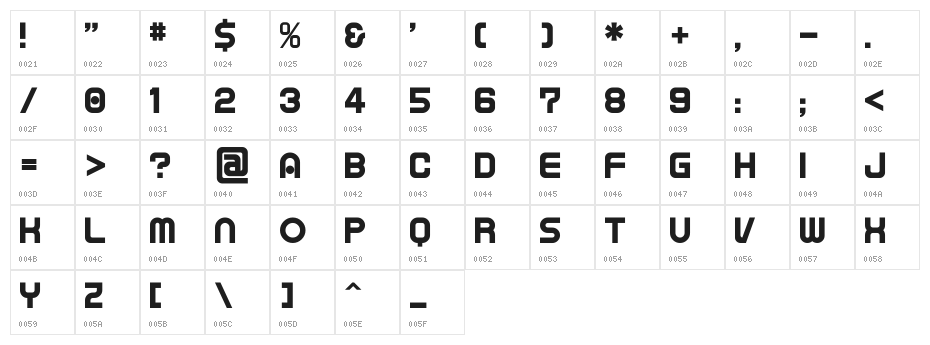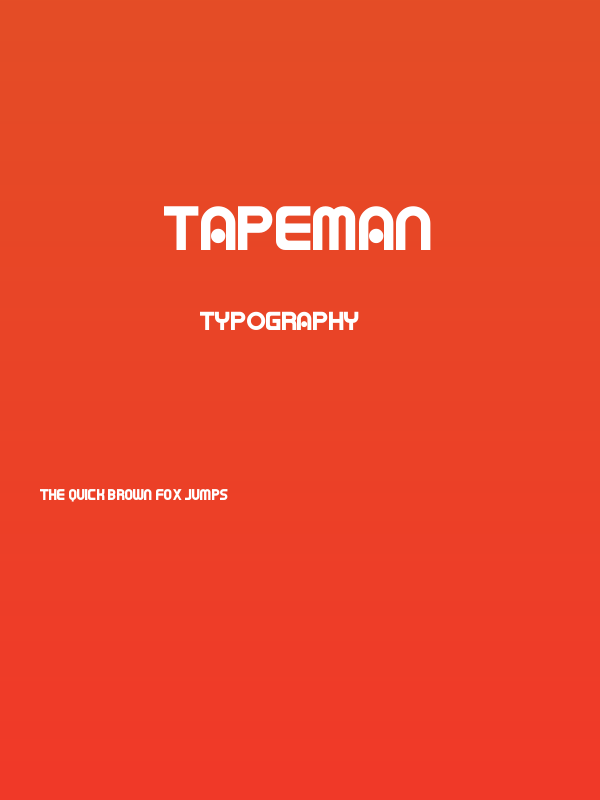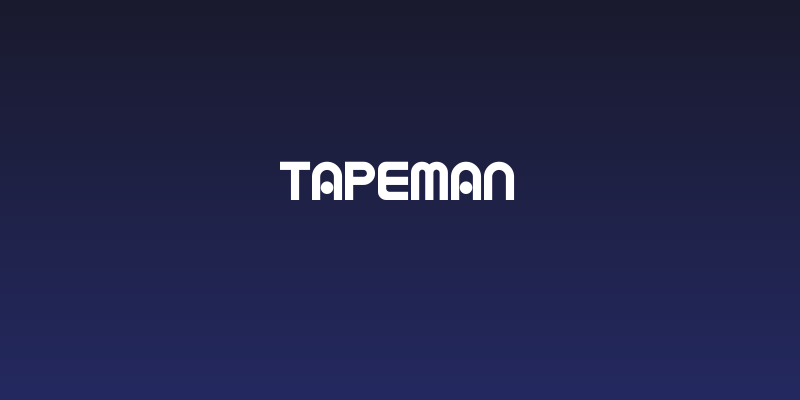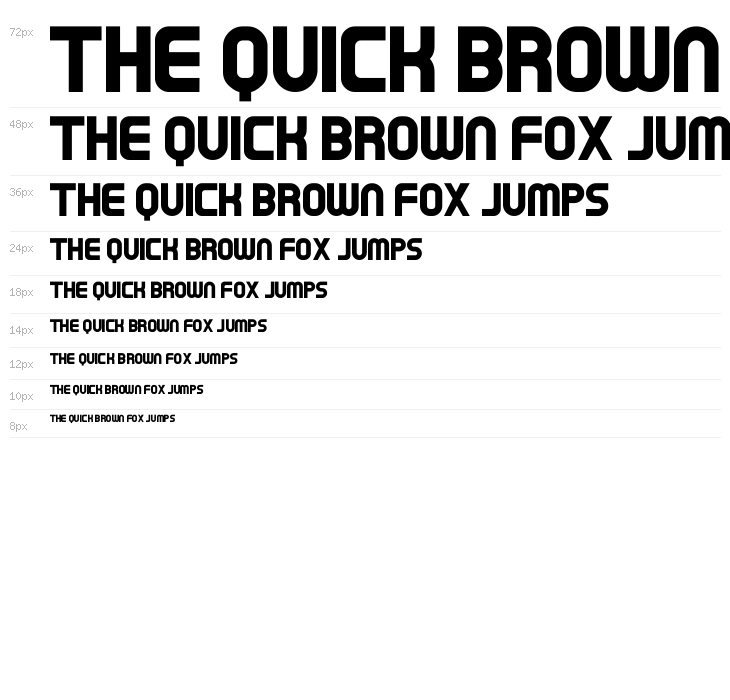
TAPEMAN Font
TAPEMAN Description
This font features a bold and geometric design with a strong presence. The characters are constructed with thick, uniform strokes that give a sense of solidity and modernity. The rounded edges and consistent line weight contribute to a cohesive and streamlined appearance. The font maintains a balance between angular and curved elements, creating a unique visual appeal. Its boldness makes it highly legible and impactful, suitable for various design applications. The numerals and special characters are designed to match the overall style, ensuring consistency across all text elements.